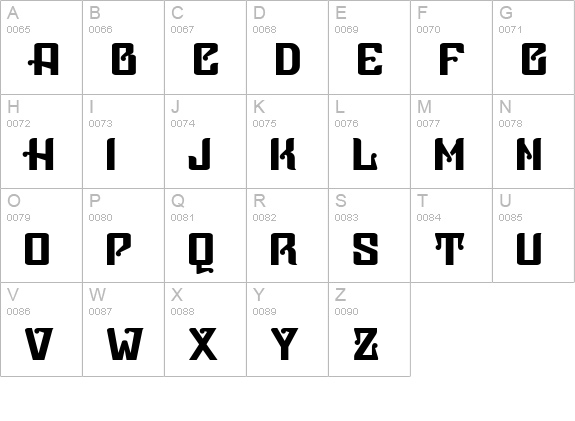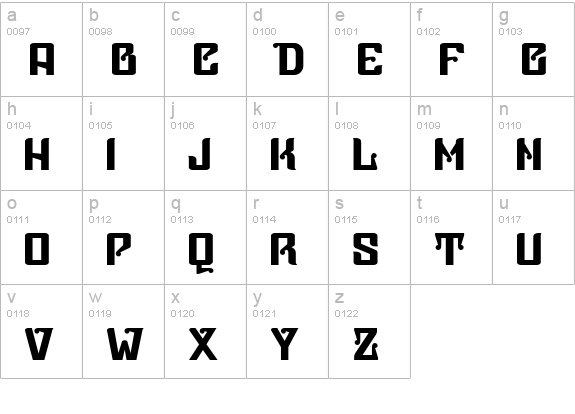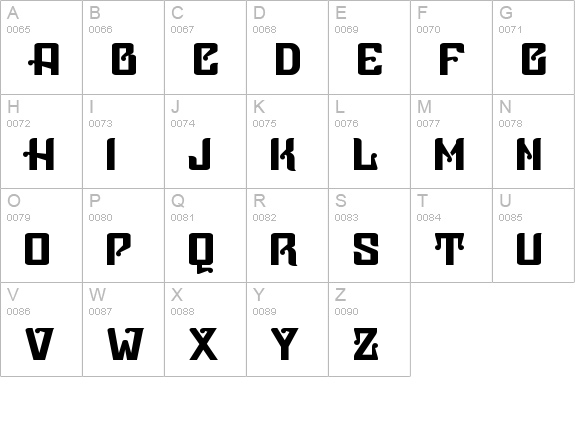
Vice Presidente Font Details
Introducing Vice Presidente, a dynamic and versatile font that exudes power and sophistication. This font is the perfect choice for individuals and businesses looking to make a bold statement with their typography. With its sleek and modern design, Vice Presidente commands attention and demands respect. Its sharp and clean lines create a sense of authority, while its subtle curves add a touch of elegance. This font is truly a testament to the power of typography in conveying a message. What sets Vice Presidente apart is not only its visually striking appearance, but also its accessibility. As a free font, it is available for everyone to download and use. Whether you are a designer looking to create impactful designs, a business owner seeking to elevate your branding, or an individual wanting to add a touch of sophistication to your personal projects, Vice Presidente is freely available to download at FontsMarket.com. This font is designed to make a lasting impression, whether it is used for headlines, logos, posters, or any other design project. Its versatility allows it to seamlessly blend into any creative endeavor, enhancing the overall aesthetic and leaving a lasting impact on viewers. Vice Presidente is not just a font; it is a statement. It embodies the qualities of a true leader - confidence, strength, and charisma. By incorporating Vice Presidente into your designs, you are sure to captivate your audience and leave a lasting impression. Download Vice Presidente today at FontsMarket.com and experience the power of this remarkable font for yourself. Let your typography speak volumes and elevate your designs to new heights with Vice Presidente.